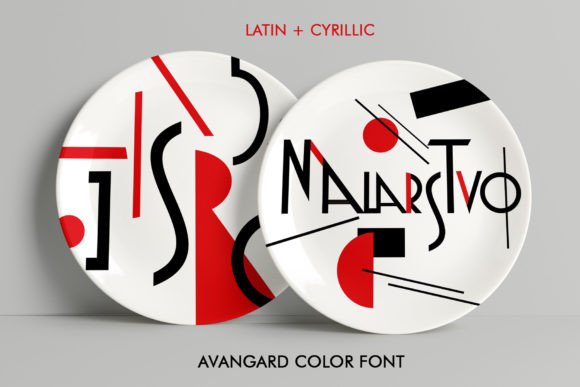
Malarstvo Font: A Stylish, Avant-Garde Display Font Inspired by Ukrainian Art
The world of typography is a vast and fascinating one, with countless fonts and styles to choose from. However, some fonts stand out from the rest due to their unique history, design, and versatility. One such font is Malarstvo, a stylish, avant-garde display font that draws inspiration from the lettering created by the Ukrainian artist Vasyl Krychevsky.
Who was Vasyl Krychevsky?
Before diving into the world of Malarstvo font, it’s essential to understand the artist who inspired it. Vasyl Krychevsky (1873-1952) was an outstanding Ukrainian architect, artist, scholar, and teacher. His contribution to the development of modern Ukrainian art and culture was immense, and his work continues to be celebrated to this day.
Krychevsky was a pioneer in his field, setting new trends in Ukrainian art and design. He was one of the first Ukrainian artists to incorporate modernist elements into his work, creating a unique blend of traditional and contemporary styles. His designs ranged from architectural buildings to book illustrations, and his impact on Ukrainian culture is still felt today.
The Inspiration Behind Malarstvo Font
Malarstvo font is a direct result of Vasyl Krychevsky’s incredible artistic legacy. The font’s design is inspired by Krychevsky’s lettering, which was characterized by its unique blend of modernism and traditional Ukrainian art. The font’s creator sought to capture the essence of Krychevsky’s style, translating it into a digital format that could be used by designers and artists around the world.
The result is a font that is both stylish and avant-garde, perfect for designers looking to add a touch of Ukrainian flair to their work. Malarstvo font features elegant lines, intricate details, and a unique character that sets it apart from other fonts.
What Makes Malarstvo Font So Versatile?
Malarstvo font is an incredibly versatile font that can be used in a wide range of projects. Its elegant design makes it perfect for:
- T-shirt design: Add a touch of Ukrainian style to your t-shirt designs with Malarstvo font.
- Typographic art: Create stunning typographic art pieces using Malarstvo font.
- Social media images: Elevate your social media images with the unique and stylish Malarstvo font.
- Book design: Use Malarstvo font to create beautiful book covers, illustrations, and typographic designs.
- Advertising: Add a touch of sophistication to your advertising materials with Malarstvo font.
Malarstvo font is also highly legible, making it suitable for use in a variety of contexts, from large headlines to smaller body text.
Key Features of Malarstvo Font
Malarstvo font comes with a range of key features that make it an attractive option for designers:
- Unique design: Malarstvo font features a unique blend of modernism and traditional Ukrainian art.
- Highly legible: The font is highly legible, making it suitable for use in a variety of contexts.
- Versatile: Malarstvo font can be used in a wide range of projects, from t-shirt design to book design.
- Elegant lines: The font features elegant lines and intricate details, giving it a sophisticated look.
- Experiment with colors: The font looks great in a range of colors, from bold and bright to more muted tones.
- Pair it with other fonts: Malarstvo font pairs well with other fonts, such as sans-serif fonts or script fonts.
- Use it sparingly: While Malarstvo font is beautiful, it can be overwhelming if used too much. Use it sparingly to create a focal point in your design.
Malarstvo font is a stylish, avant-garde display font that is inspired by the lettering created by Vasyl Krychevsky, a renowned Ukrainian artist. The font’s unique design, versatility, and elegance make it perfect for a wide range of design projects, from t-shirt design to book design.
Whether you’re a professional designer or a DIY enthusiast, Malarstvo font is a great addition to your font library. Its highly legible design and unique character make it an excellent choice for anyone looking to add a touch of Ukrainian style to their work.